14 Valentine’s Day fonts perfectly capture the spirit of love
Enjoy the joys of Valentine's Day and make your own designs with these amazing fonts.
A charming Valentine’s Day fonts that capture your heart, love, and romance. With the cute and playful style, these fonts are ideal for creating heartfelt designs that celebrate love in all its forms. We have selected 20 of the most amazing fonts for your projects. Browse and download your favorite items with ease.
Whether you’re working on Valentine’s Day cards, love notes, or adorable kid-themed projects, these fonts bring warmth and joy to every letter. Here you will find different styles of typography, from sans serif to scripts. You can easily choose the right option for you in one place. We have selected only the best fonts that will create a wonderful atmosphere for your love designs. Choose what you like and create without any restrictions.
Cupid Angel – Happy Valentine Font
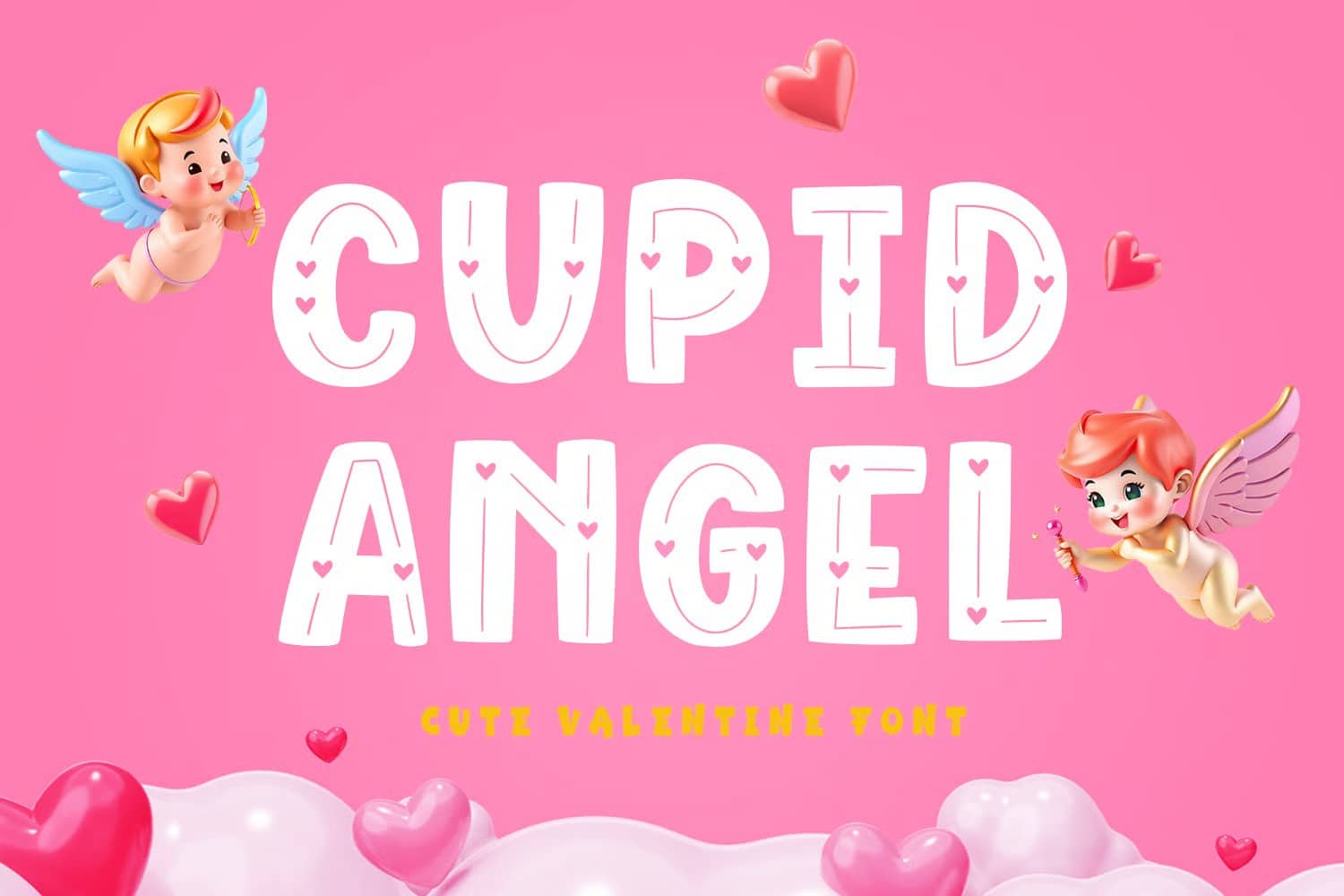
The soft, rounded edges and heart-inspired details make this font the perfect choice for themes like Valentine’s Day, romance, and anything that needs a cute, loving touch. Comes in standard and multilingual glyphs. PUA encoded characters.
Heartova – Valentine Font
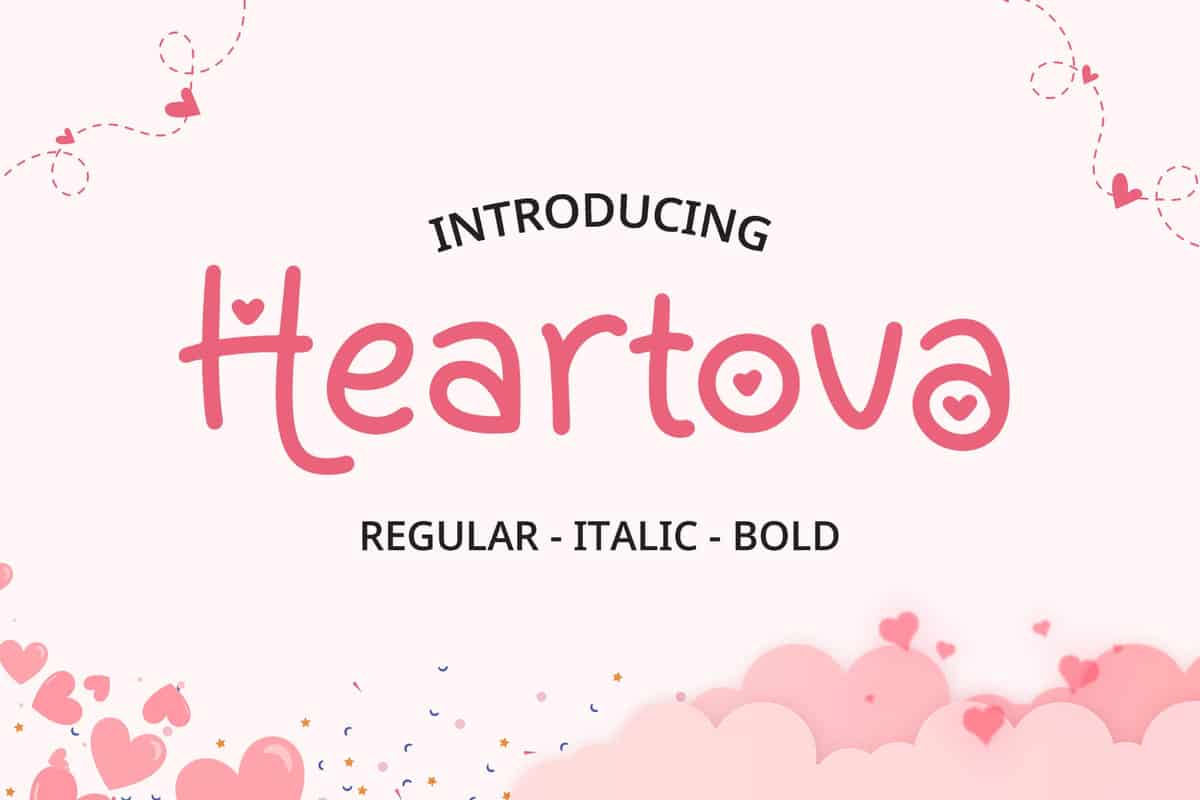
A charming, playful font designed specifically for romantic projects. The font features distinctive heart-shaped letterforms and circular design elements integrated throughout the alphabet, giving every piece of text a uniquely affectionate and modern appeal.
Valentine Bestie Love Script Font
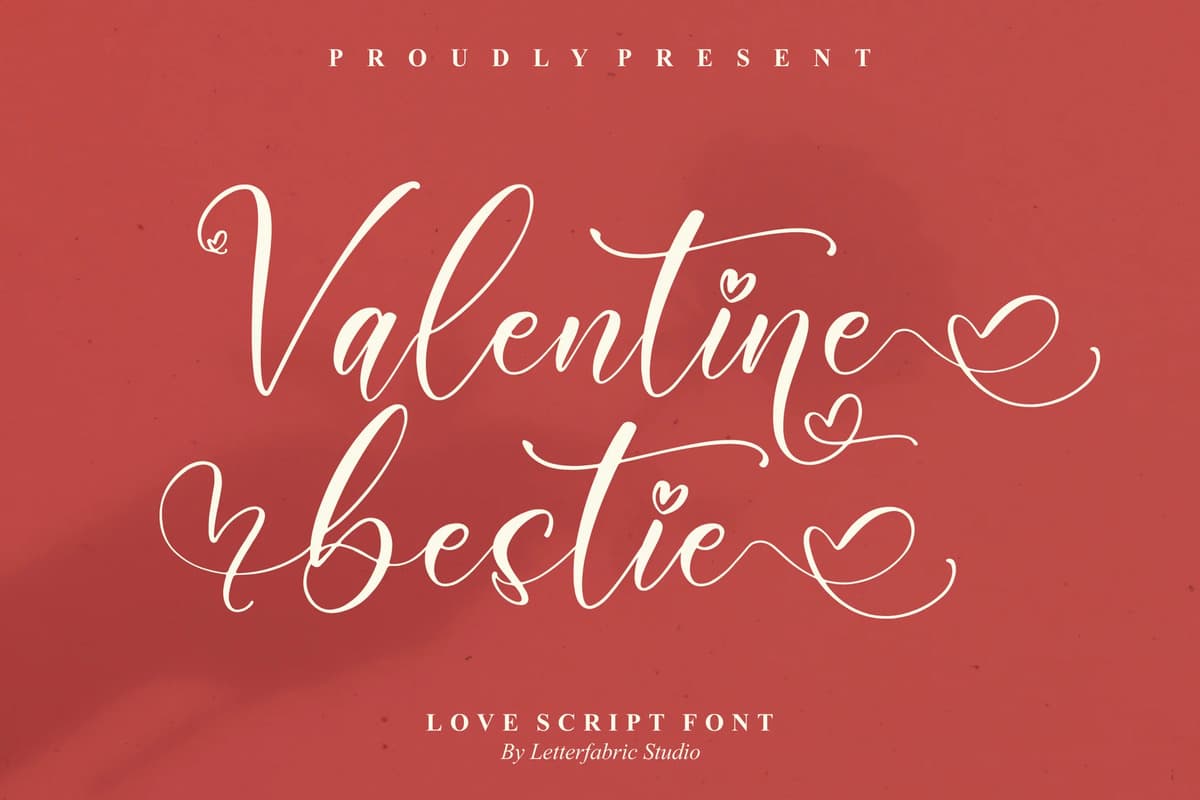
A sweet, swirling love-script that balances playful heart flourishes with elegant calligraphic strokes. Comes in uppercase and lowercase characters, stylistic alternates, contextual ligatures, and lovable heart swashes. PUA encoded and supports multilingual.
Love Pica – Lovely Valentine Font
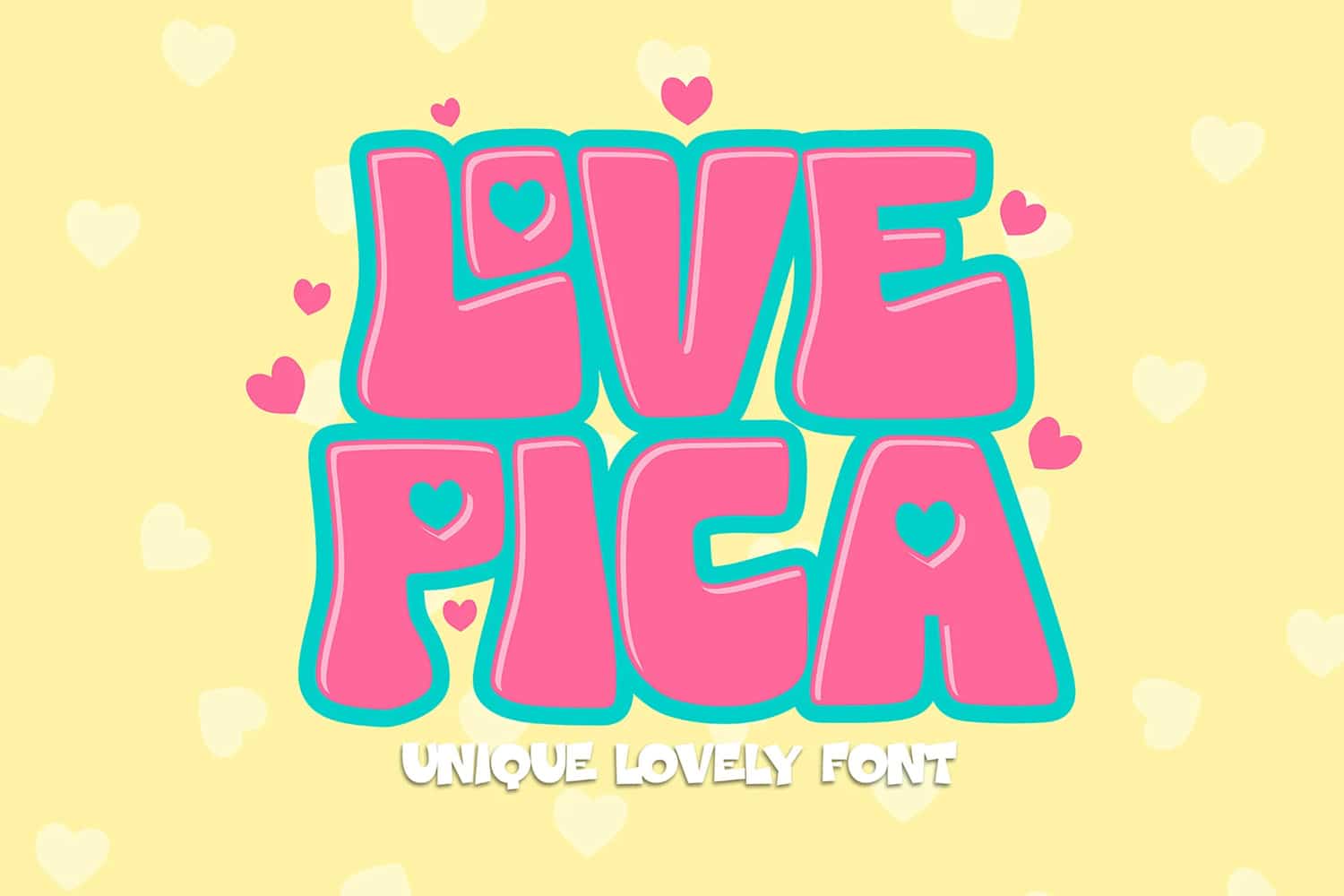
A lovely typeface with ligatures inside. It features gorgeous hearts in each letter, which give it an incredibly romantic feel. This font is suitable for valentine day posters, logos, event banners, and more. Comes in all caps only, and PUA encoded characters.
Cupid Love – A Lovely Typeface
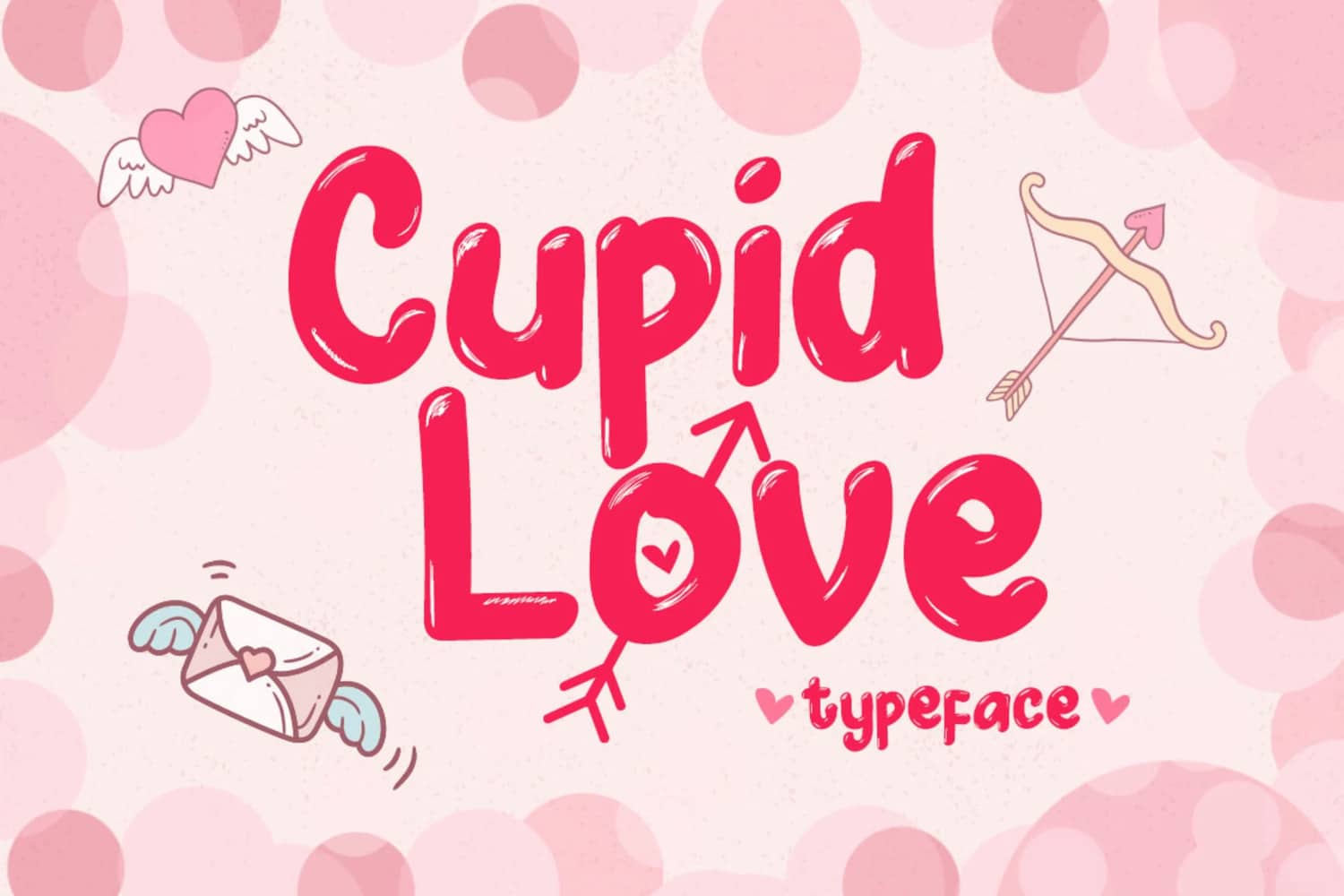
This is a bold, fun display typeface that will bring a lovely touch for Valentine’s Day! Comes in regular style and alternates with Cupid’s arrow in several characters. Great for merchandise, printing, quotes, cards, posters, and many more. Comes in standard characters, numerals, symbols, and alternatives.
Love Over – Lovely Display Font
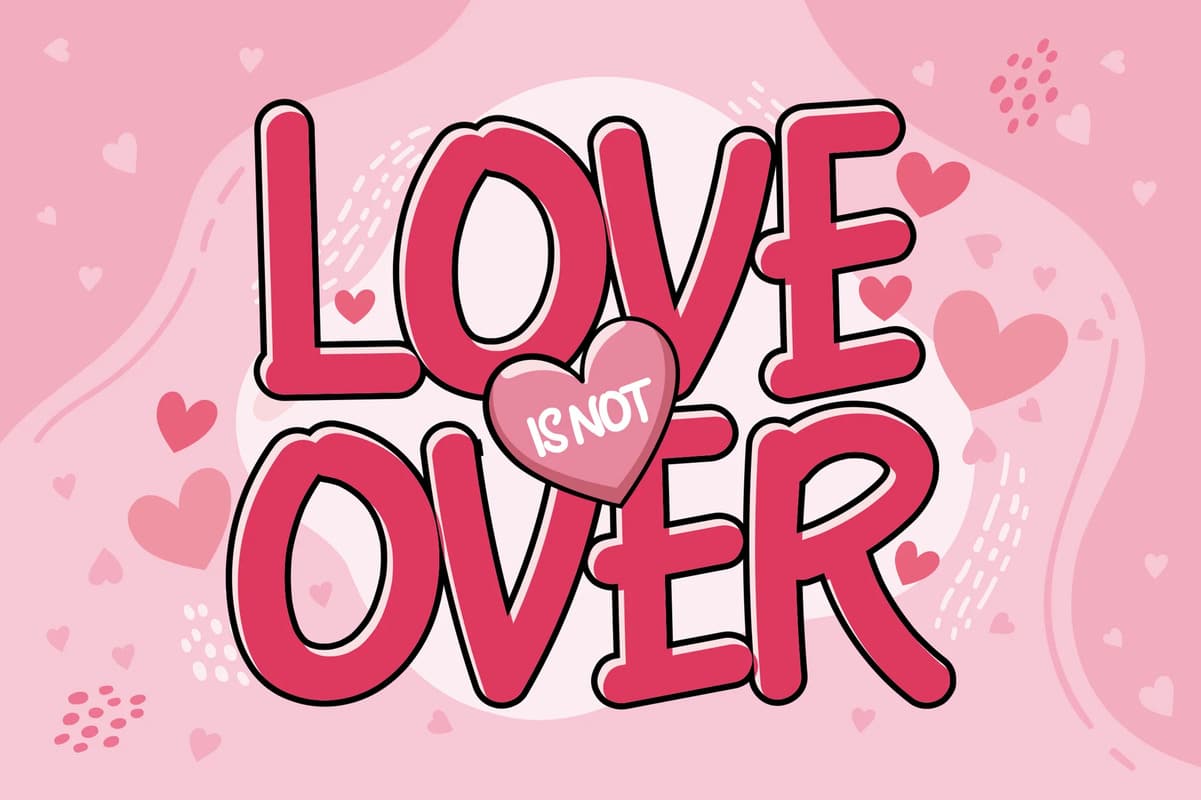
Handwritten, cartoon look, so it will make your design more beautiful, cute, fun, and colorful. Features character set, numerals and punctuation, accents, multilingual, and PUA encoded.
Cute Love – Decorative Font
A display font with romantic and modern feels. Comes in uppercase and lowercase characters, numerals, punctuation, accents, multilingual, ligatures, and alternates.
Lulove Display Typeface
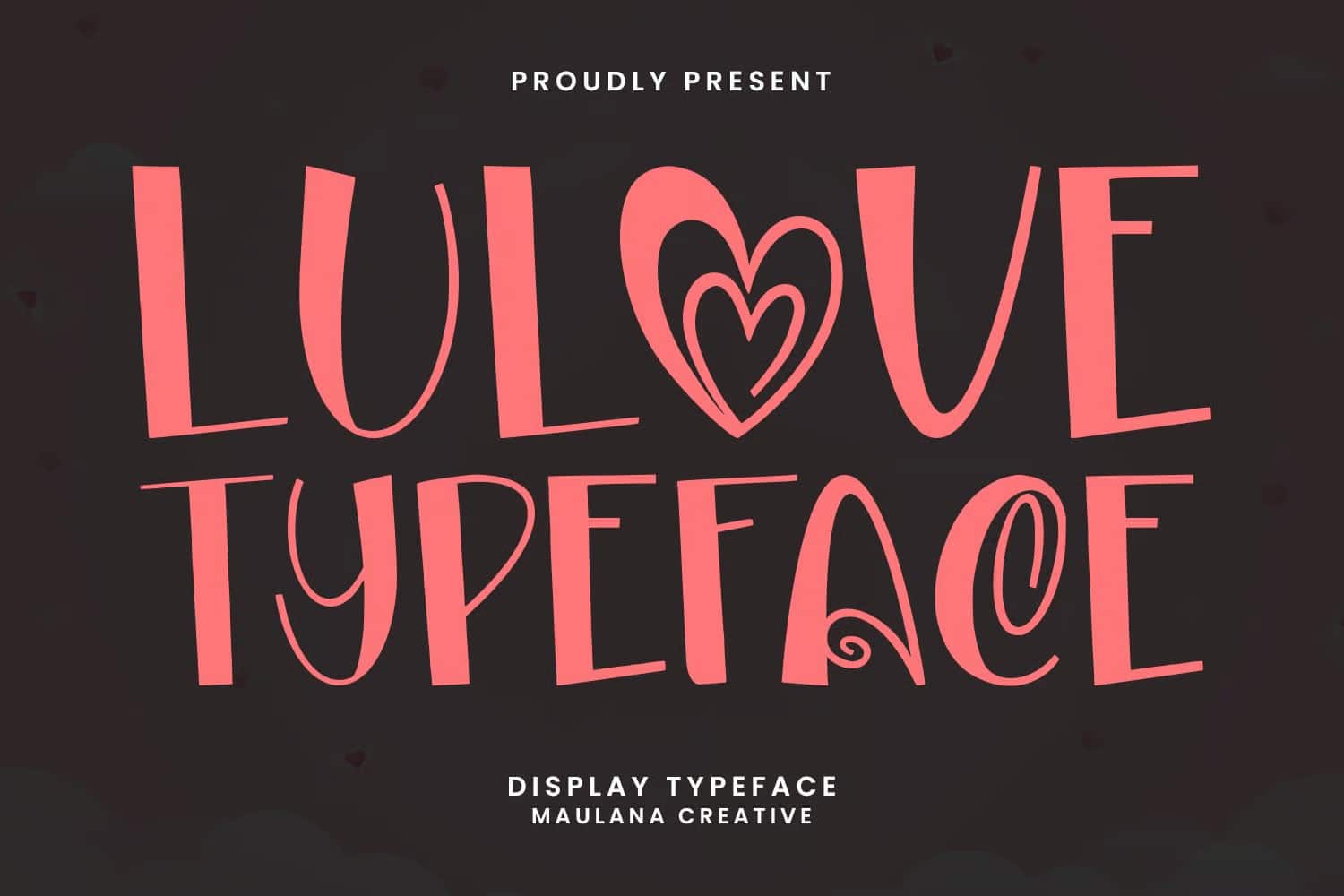
A display font support multilingual more than 100+ languages. This font is good for logo designs, Social media, movie titles, book titles, short text, and even long text letters.
Vellissa Script Font
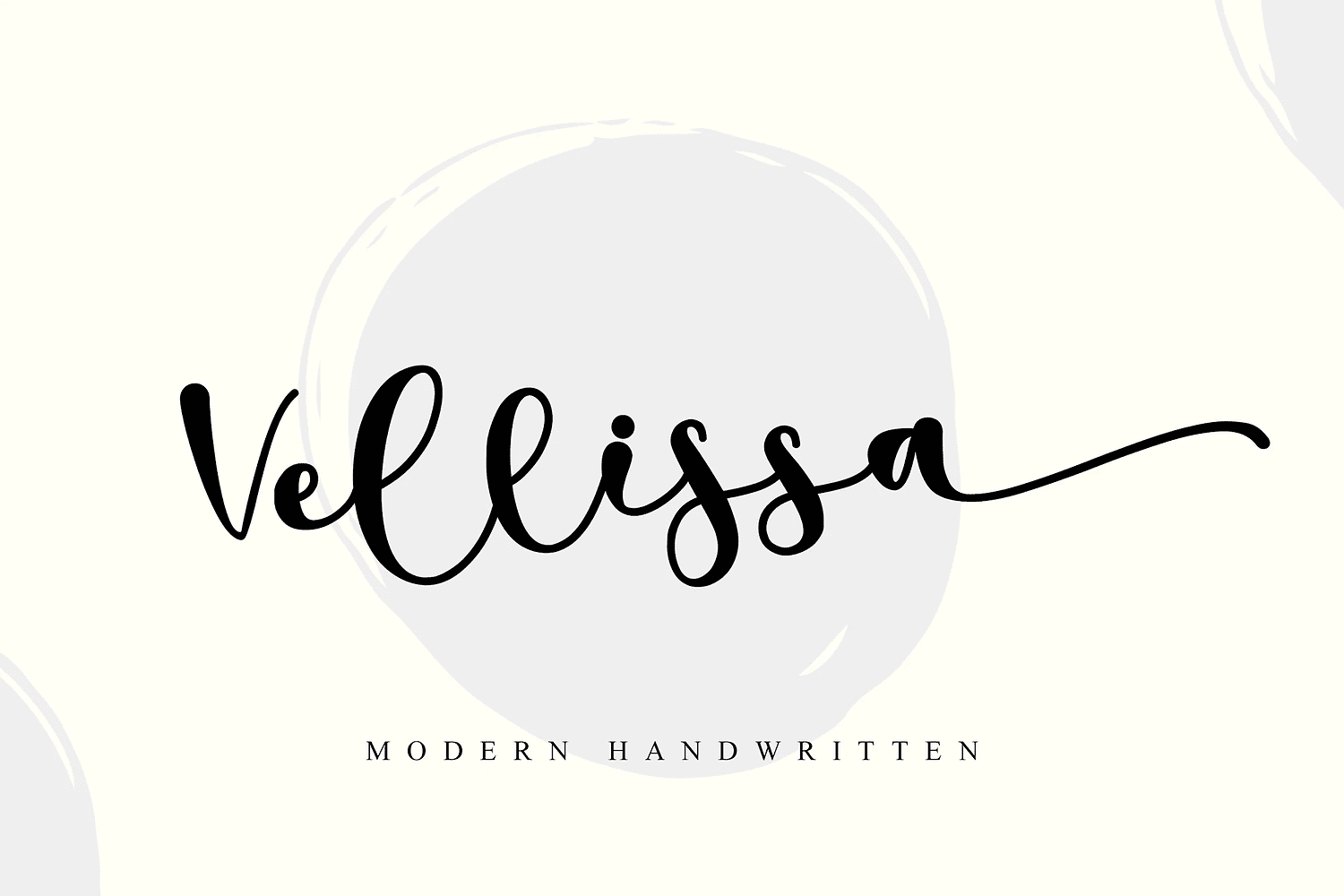
A sweet and beautiful handwritten font. It has a classy, elegant, and modern look which can be used for logos, branding, invitations, stationery, and Valentine’s Day. Comes in uppercase and lowercase characters, numerals, punctuation, alternate, swash, and ligature. It supports multilingual.
Valentine Vintage Font
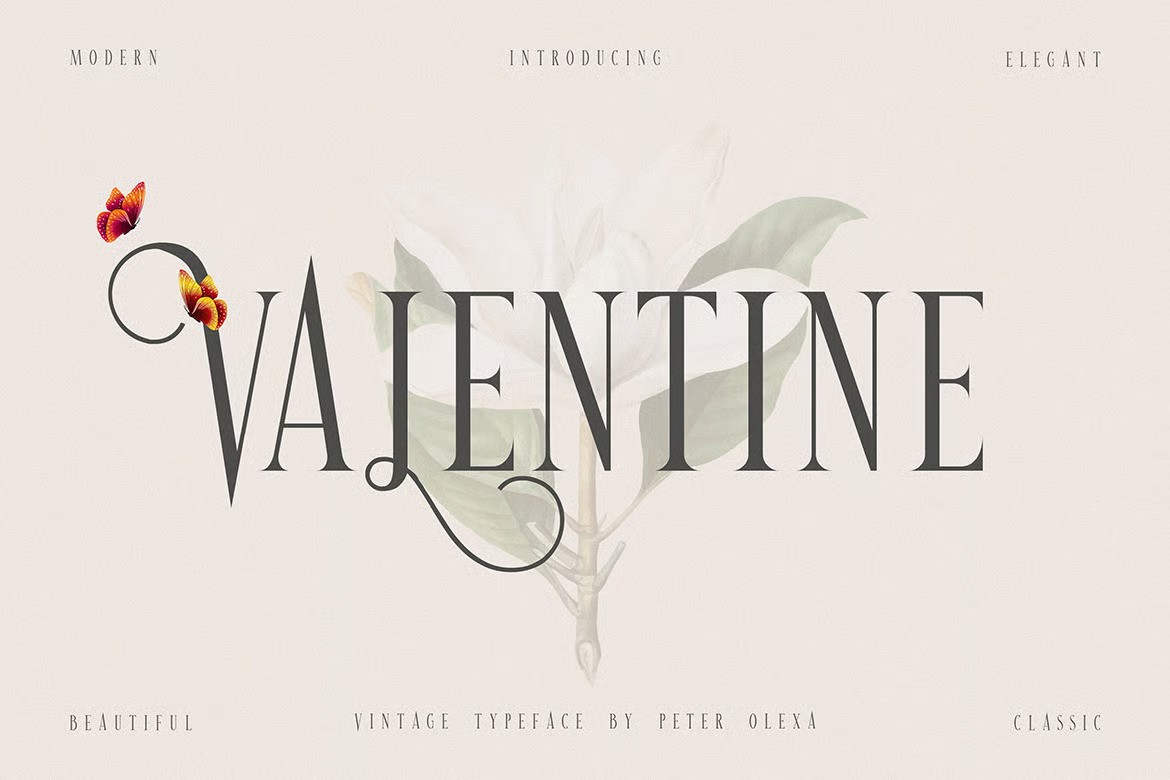
Unique condensed, vintage, and decorative serif font. Comes with multilingual support and ligatures – great for your new logos or branding projects.
Free Lovely Valentine Font
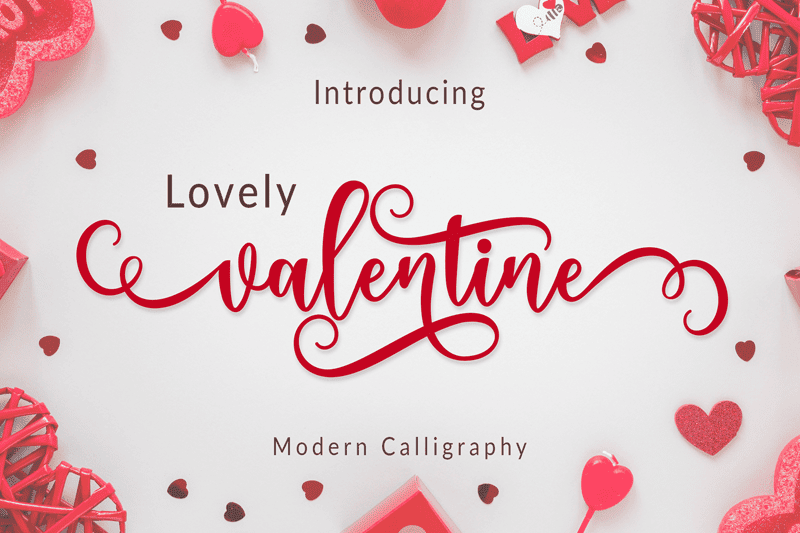
A free modern calligraphy font for Valentine’s Day designs. Creative and with stylistic endings of the letters. Best for Valentine’s Day posters, flyers, covers, invitations, greeting cards, postcards.
Losta Nova – Lovely Sans Serif
Minimal and modern sans serif font consists of 10 weights from hairline to black, as well as variable versions. Works great for branding, fashion, modern, and casual design themes. Designing a logo is made easy with tons of alternates and ligatures to play with.
True Rose – Decorative Retro Font
A decorative serif family. Bold and Vintage retro style combined with simple Victorian ornaments makes the lettering look neat and clean, perfect for your heading, title, or branding projects. Multilingual support.
Conclusion
Now that we’ve discussed all the pros and cons, it’s time to choose the right Valentine’s Day font for your design project. Choose sans-serif fonts if you want to create a clear logo; script fonts are more suitable for invitations, greeting cards, or postcards. I hope that the fonts I selected will really spread hot energy in your designs. So let’s make Valentine’s Day memorable and see you in the next post.